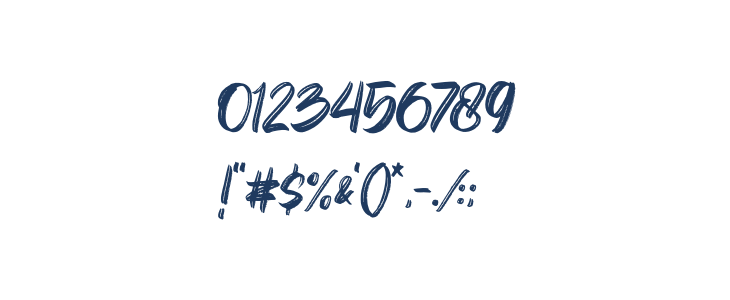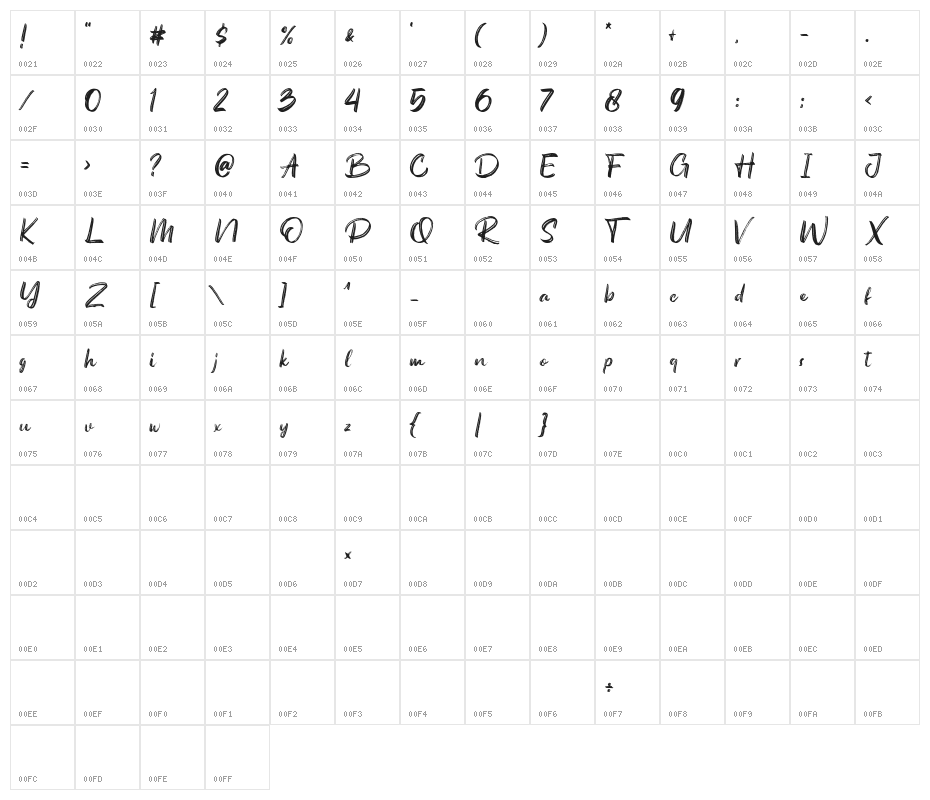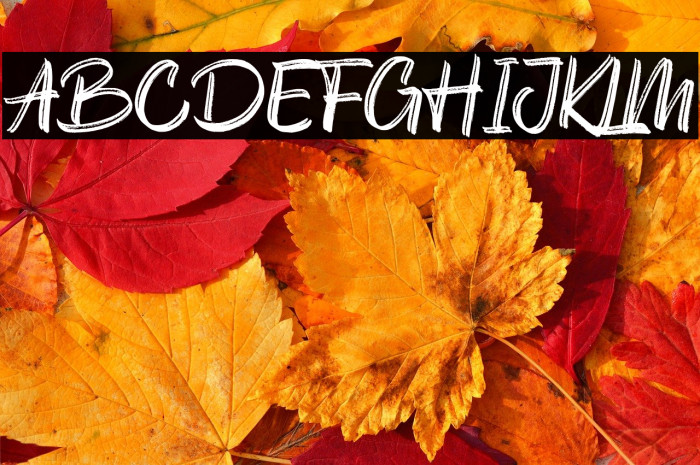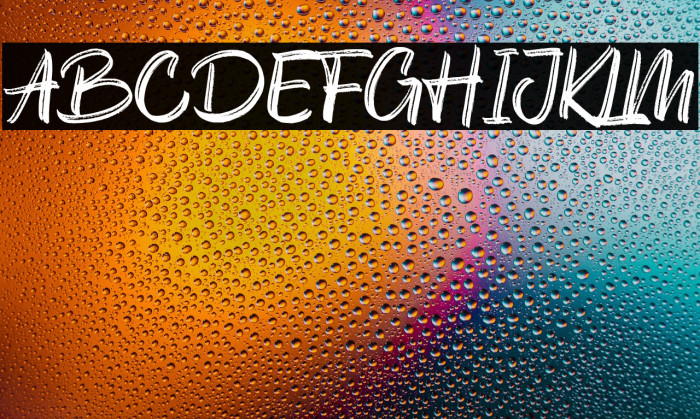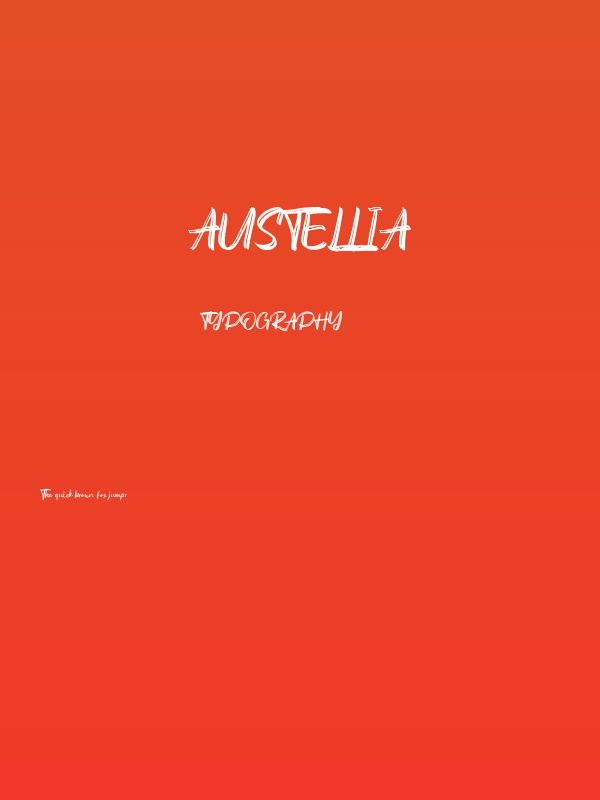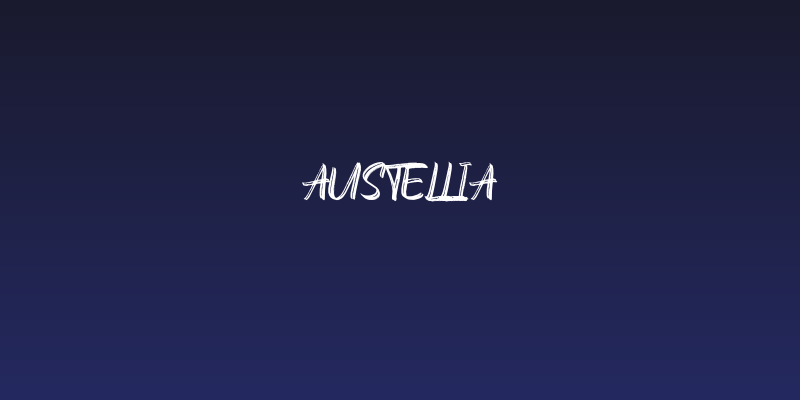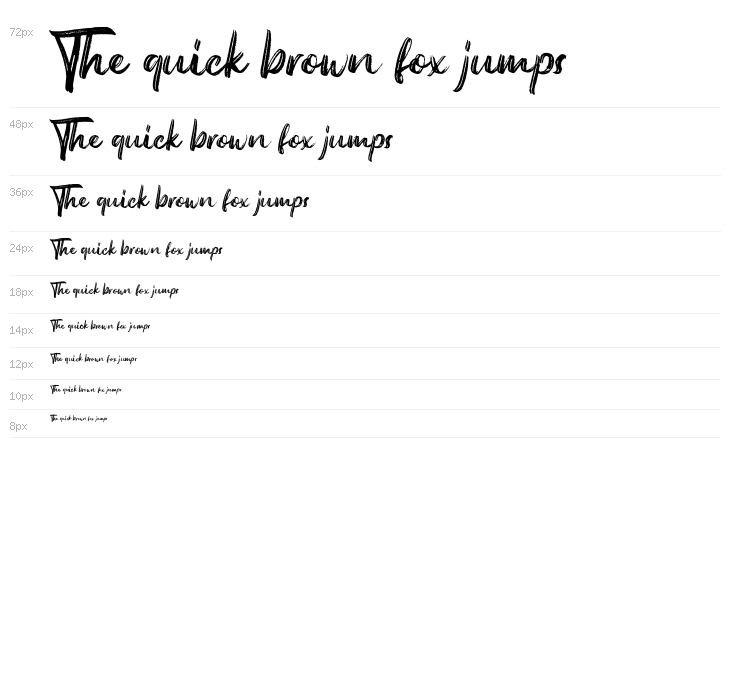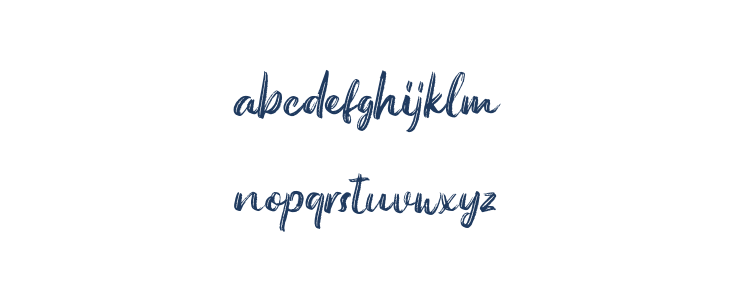
Austellia Font
Austellia Description
This font exudes a dynamic and energetic style, characterized by its bold and expressive brush strokes. The uppercase letters are particularly striking, with a sense of movement and flair that captures attention. The lowercase letters maintain this lively aesthetic, offering a cohesive look throughout the alphabet. Numbers and special characters are equally bold, ensuring consistency across all text elements. The font's hand-drawn appearance gives it a personal and artistic touch, making it ideal for creative projects that require a unique and impactful visual presence.
| Proposed Projects | Ideal for branding, posters, artistic designs, and any project needing a bold, creative touch. |